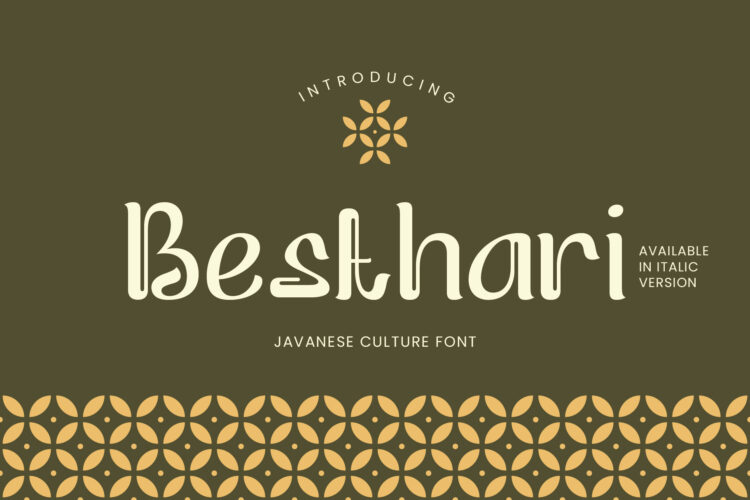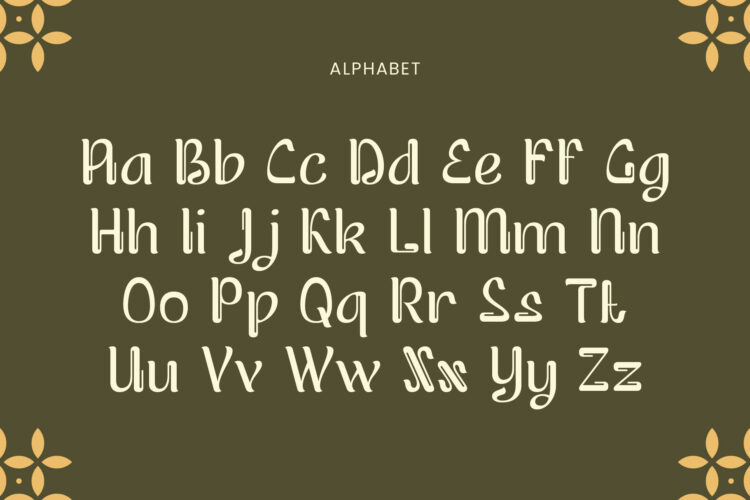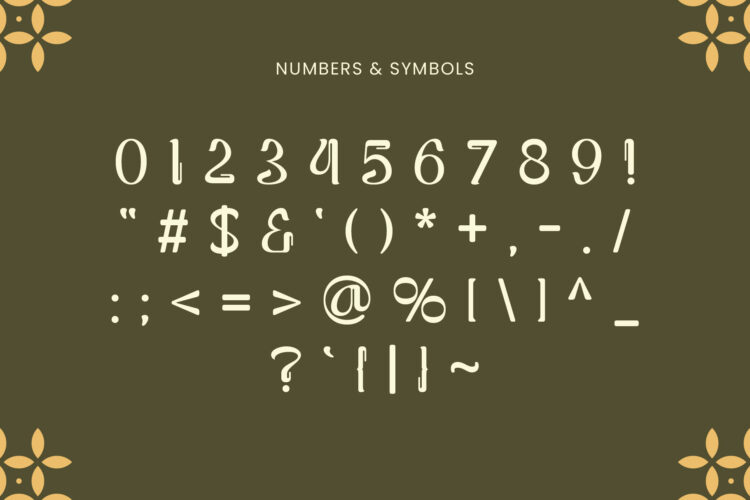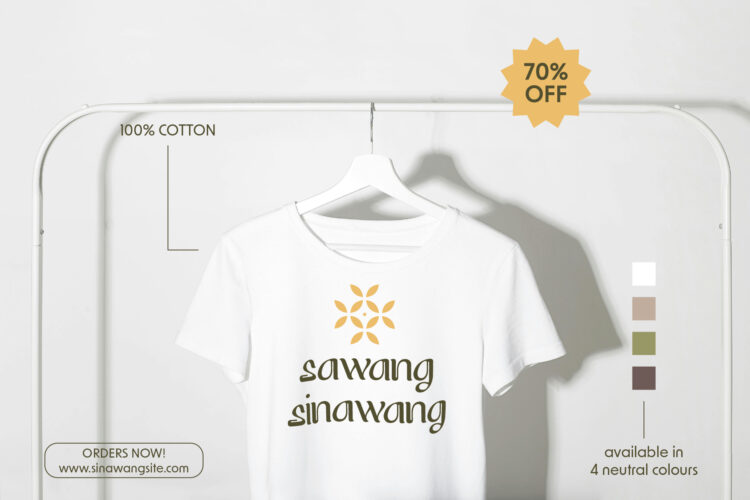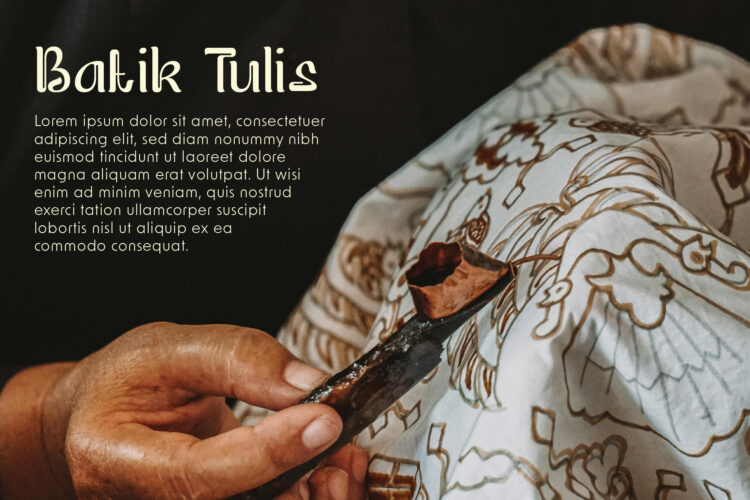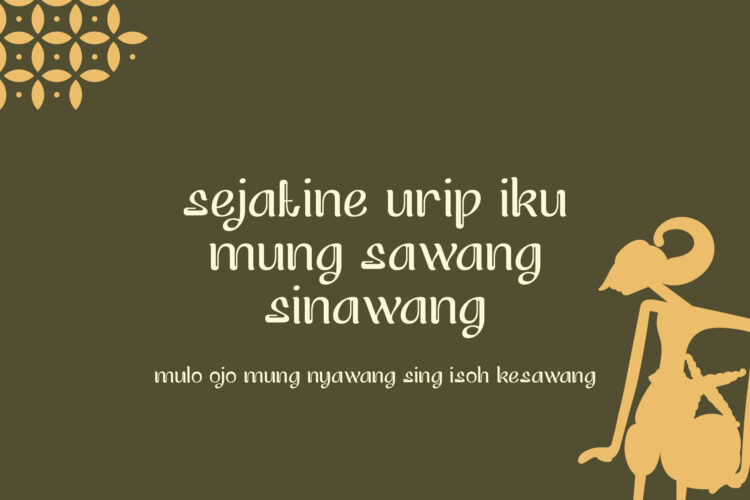
Besthari is a display font based on the beauty of Javanese tradition. Its shapes are bold, clean, and full of character. The design is inspired by classic Indonesian art and style. You can use Besthari for many types of projects. For example, it works well on posters, logos, book covers, and product packaging. It adds a unique, local touch to your design.
The font includes uppercase and lowercase letters, numbers, and basic symbols. In addition, Besthari is also available in an italic version, giving you more options to explore style and expression.
Besthari is more than just a font. It tells a story. It helps you share the rich culture of Indonesia through your design.